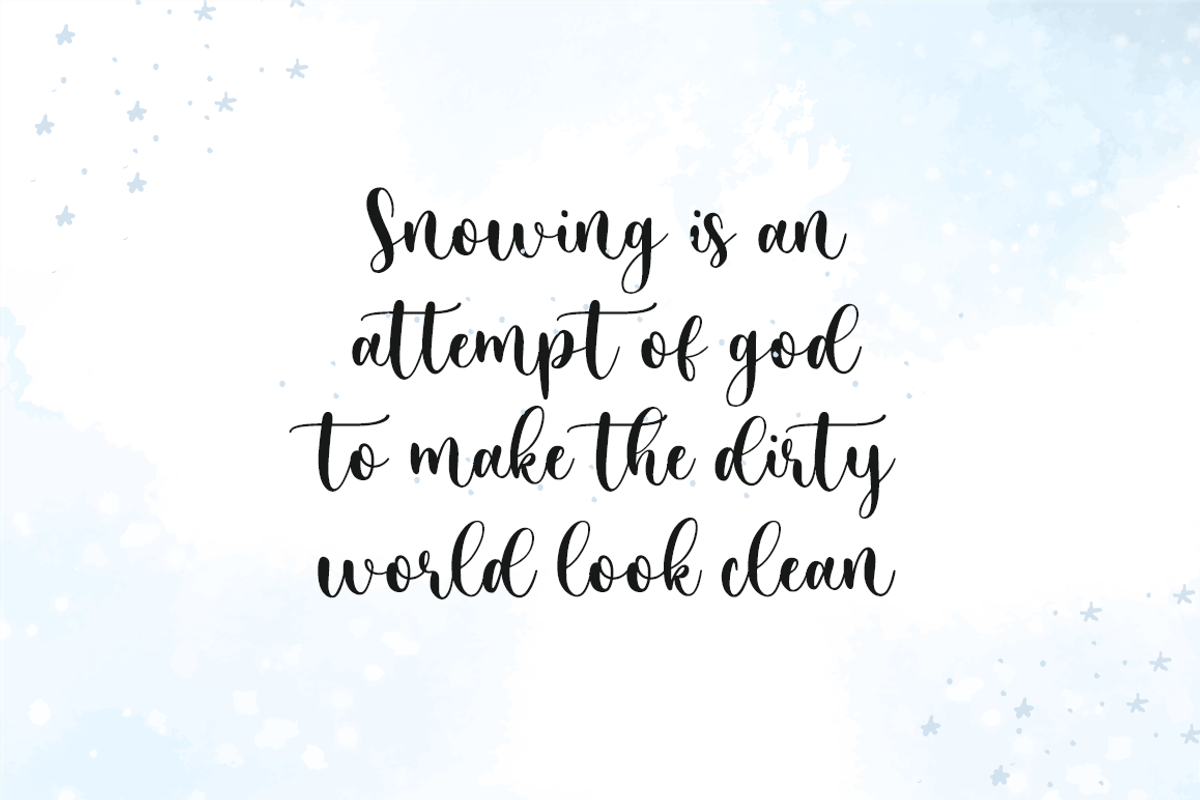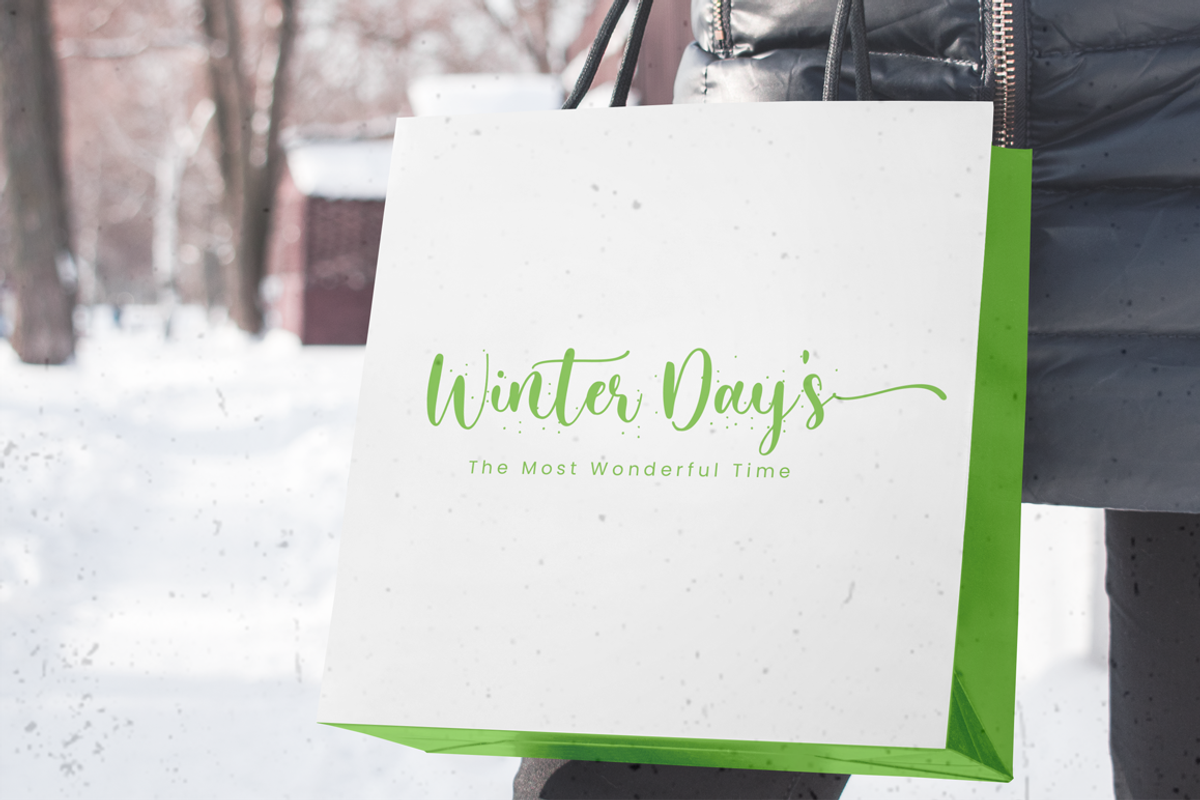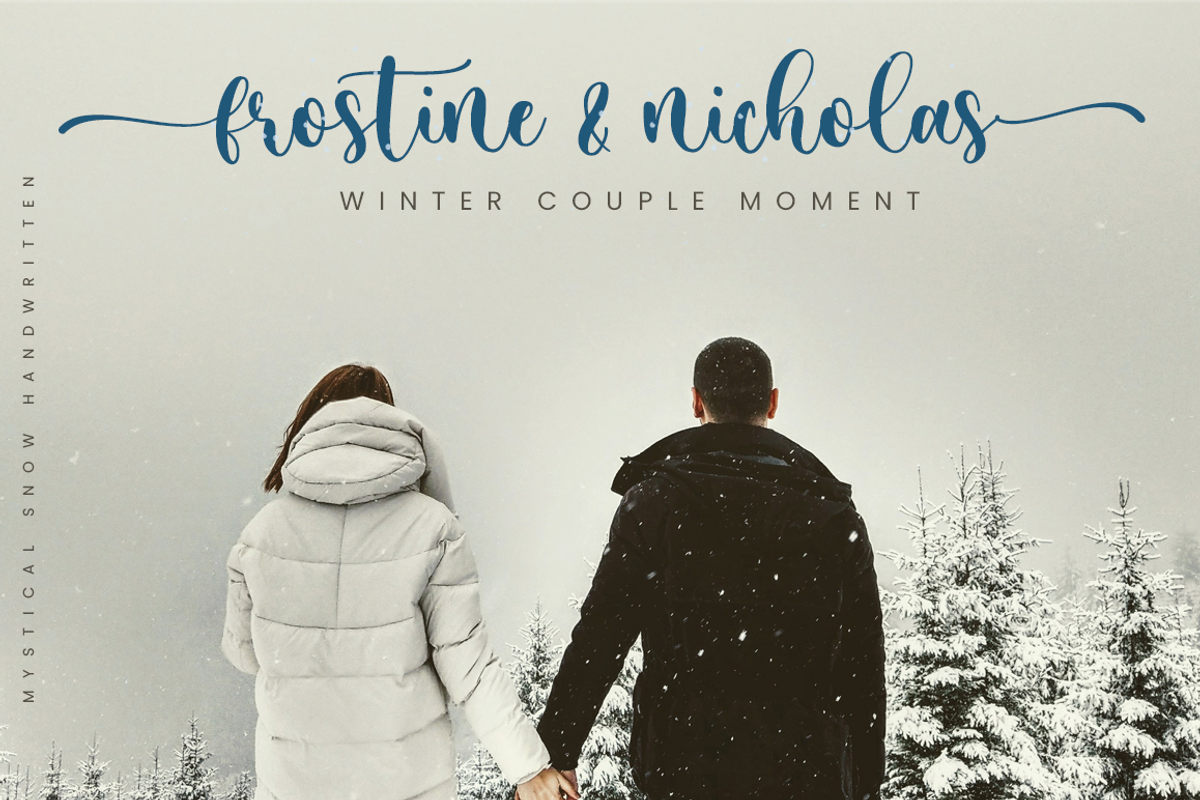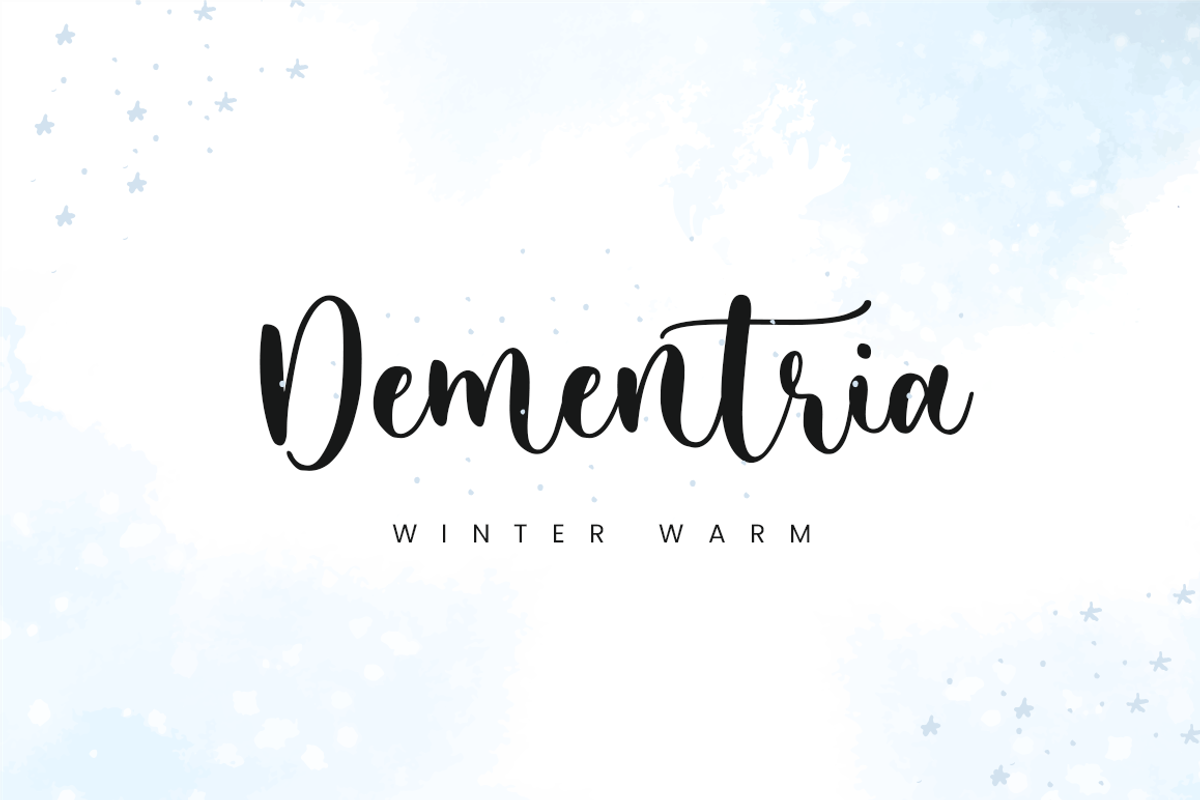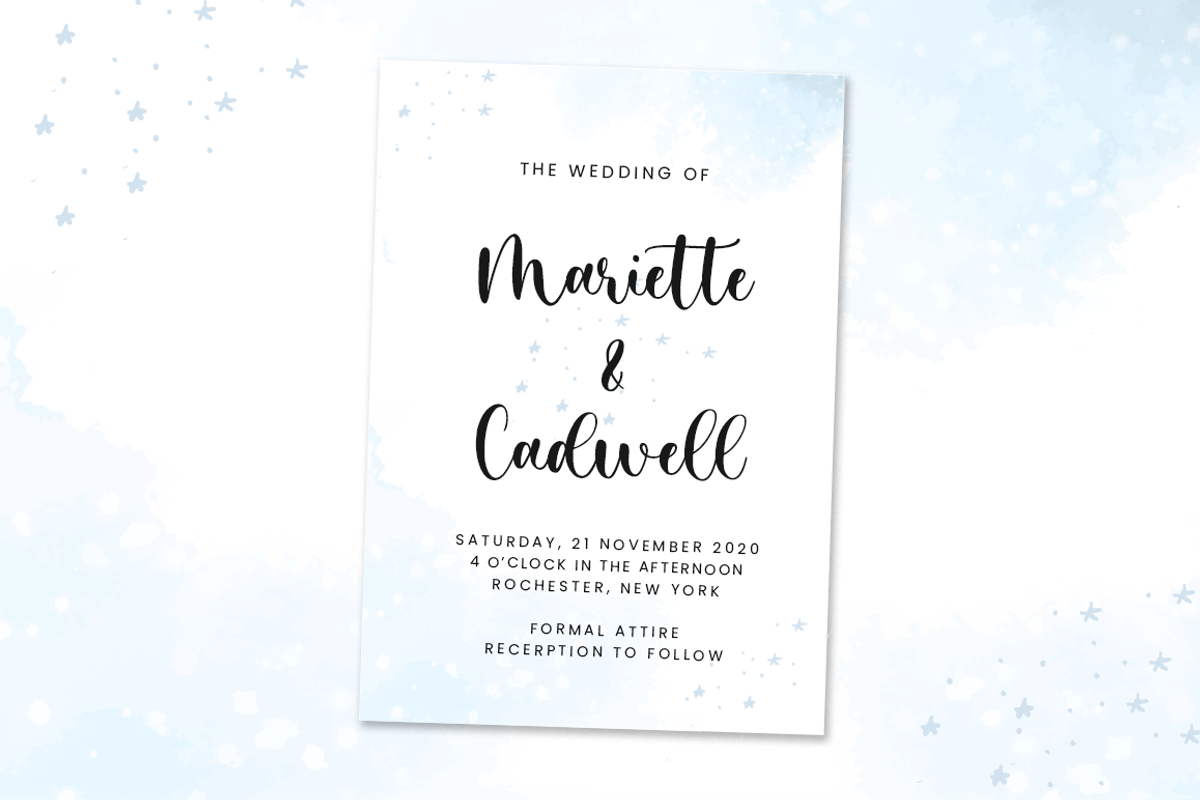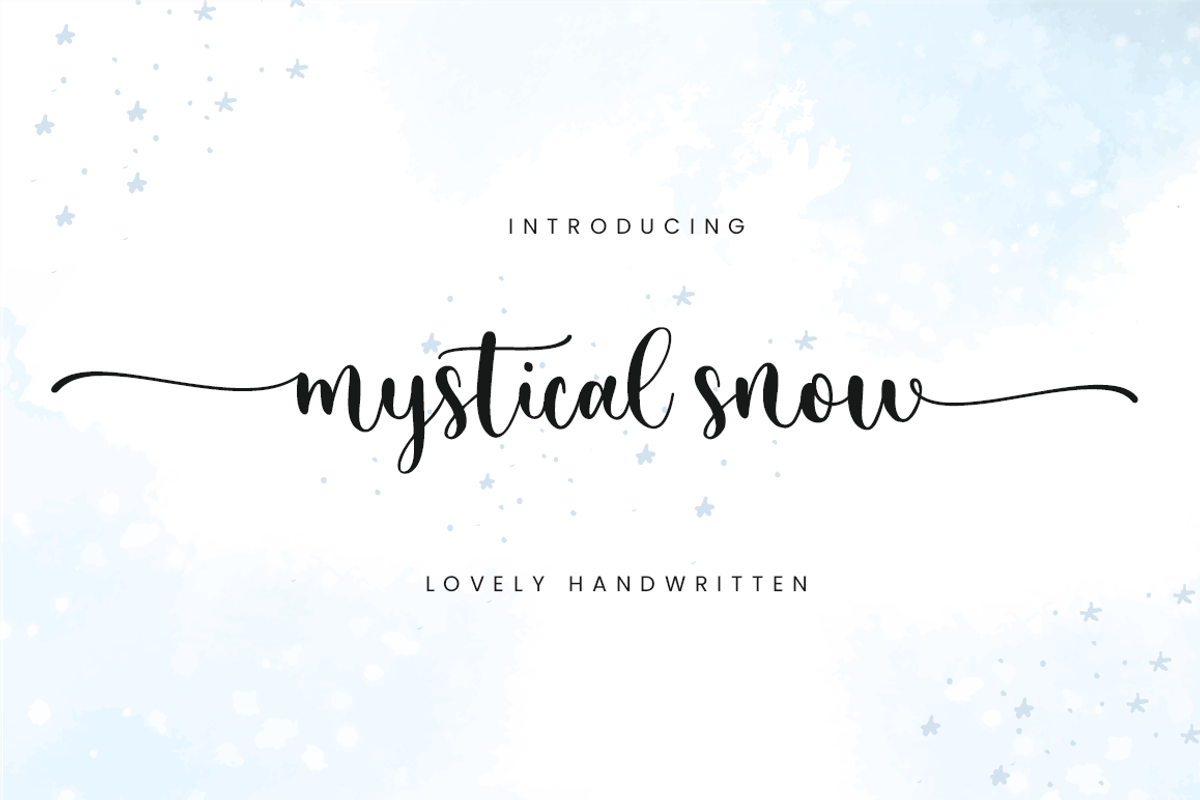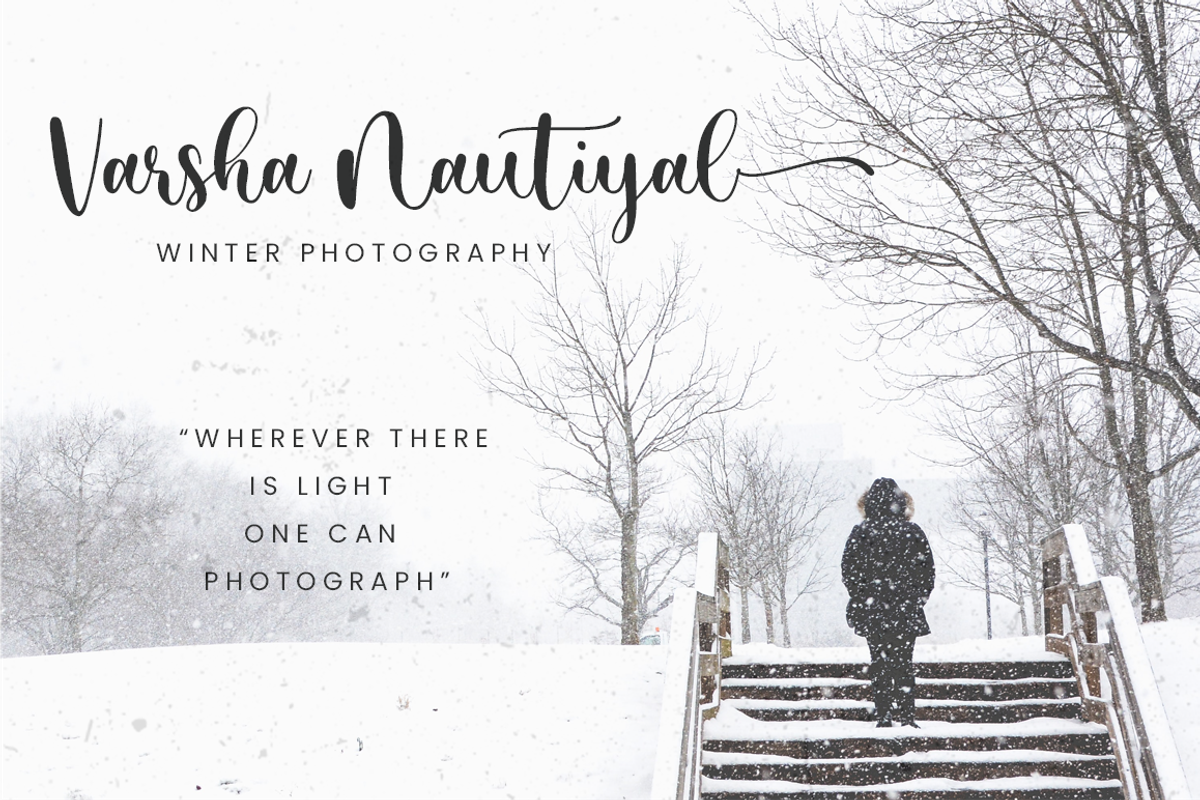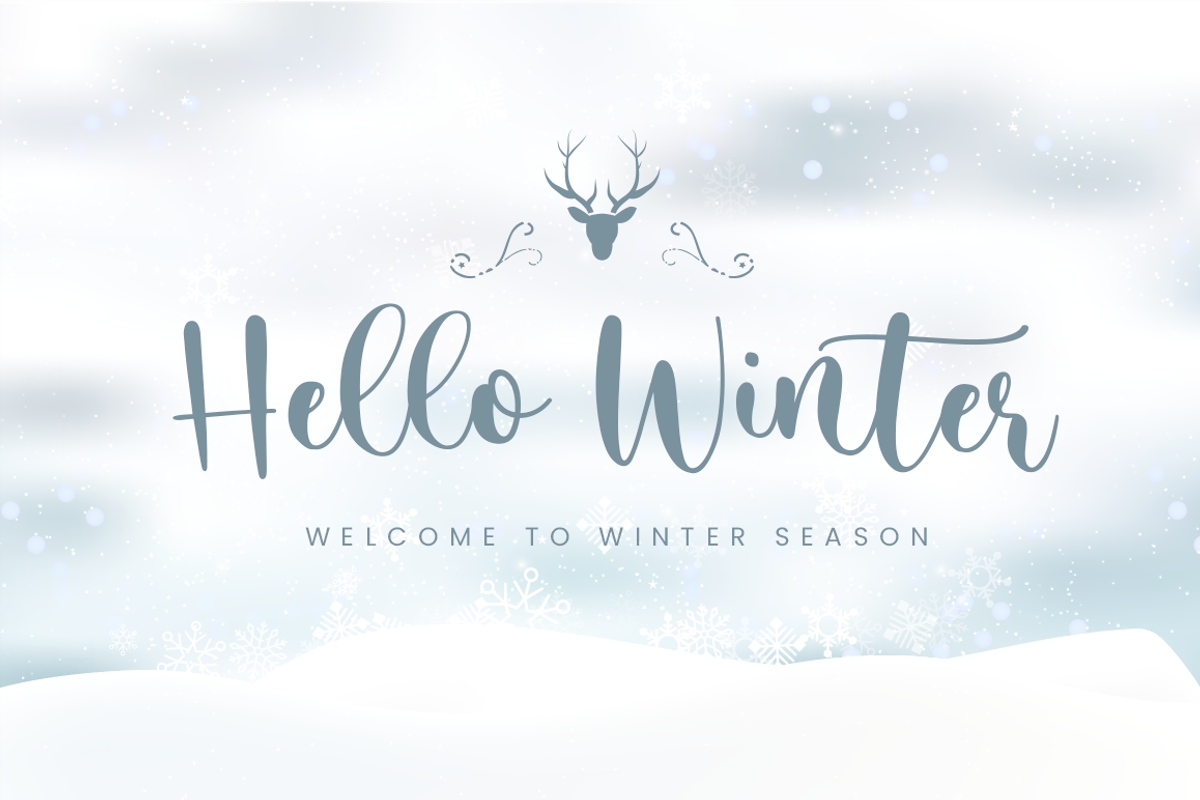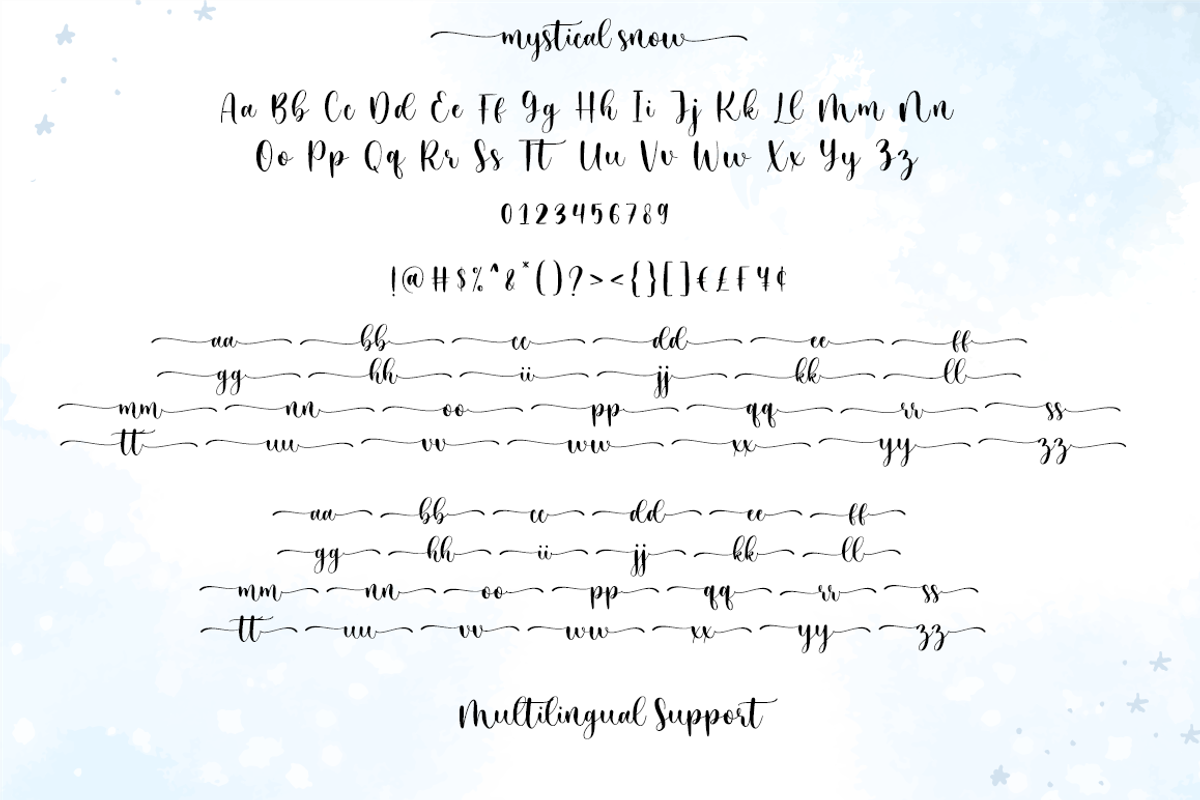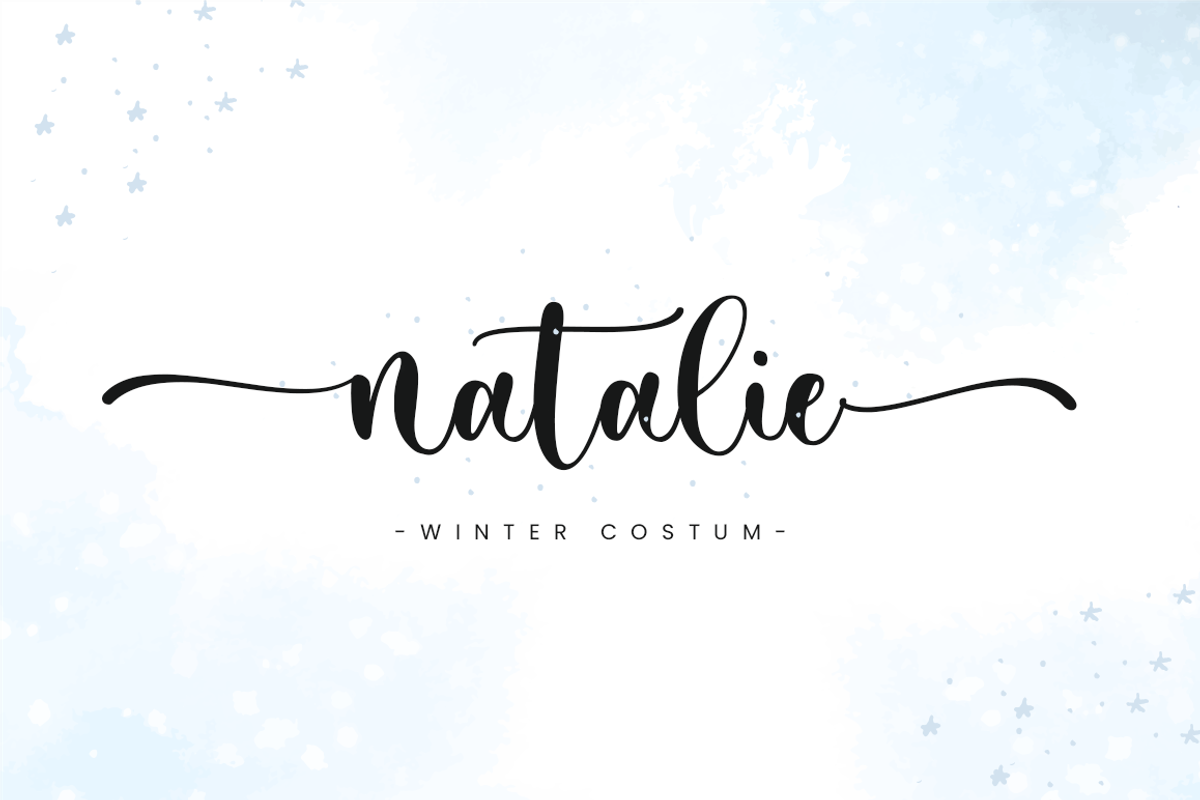
Mystical Snow - Beautiful Font
Mystical Snow is a beautiful calligraphy font perfect for crafting, branding, invitation, stationery, wedding designs, social media posts, advertisements, product packaging, product designs, label, photography, watermark, special events, or anything.
Mystical Snow comes with a full set of uppercase and lowercase letters, swash alternates, ligatures, multilingual symbols, numerals, and punctuation.